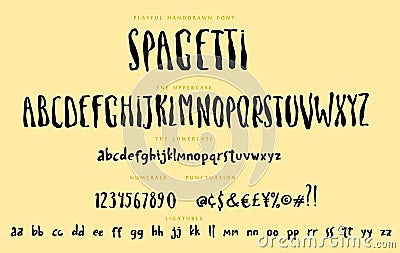
Handwritten playful script font Spagetti vector alphabet set #205706445
Handwritten font playful set Spagetti with uppercase and lowercase letters numbers and punctuation. Alphabet calligraphy signs. Letter stock vector illustration. Hand drawn typography typeset